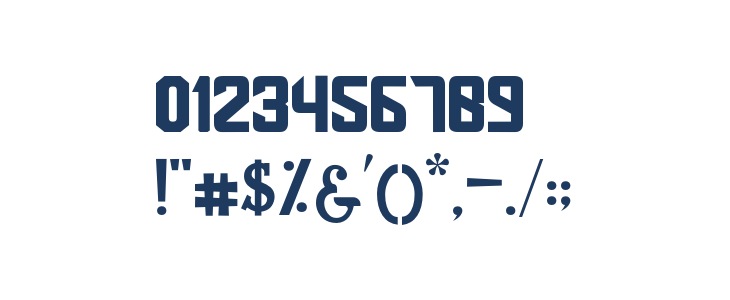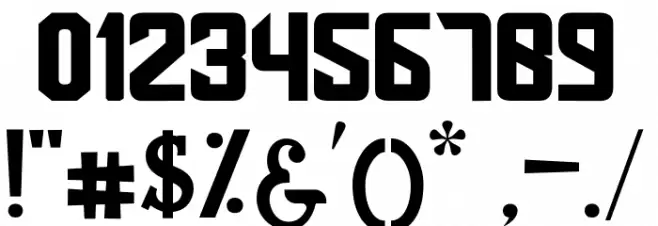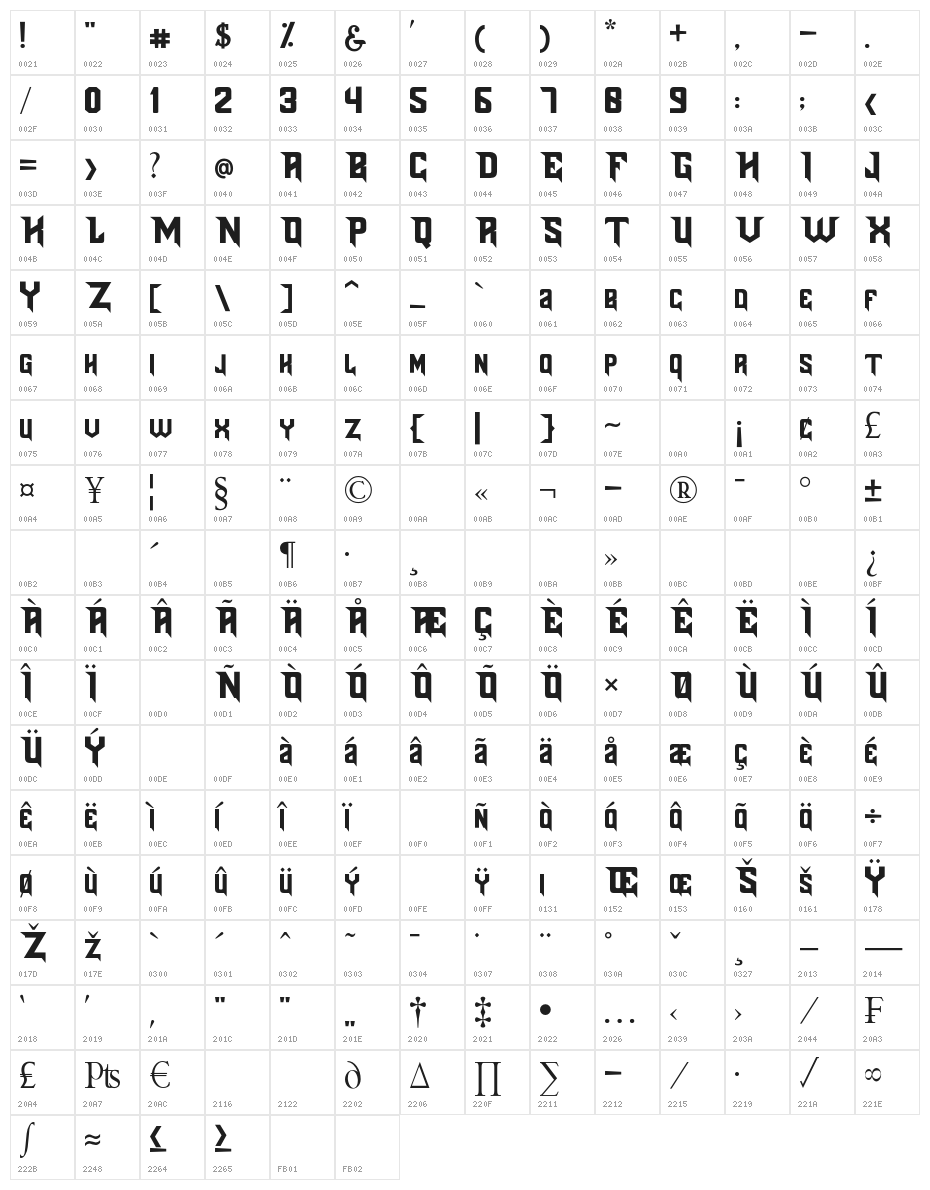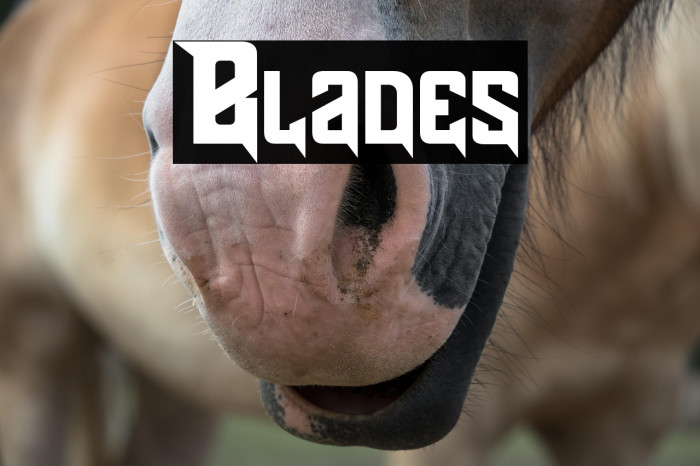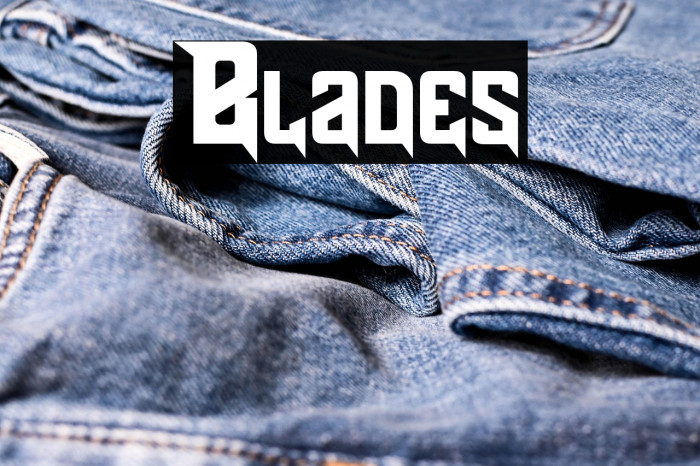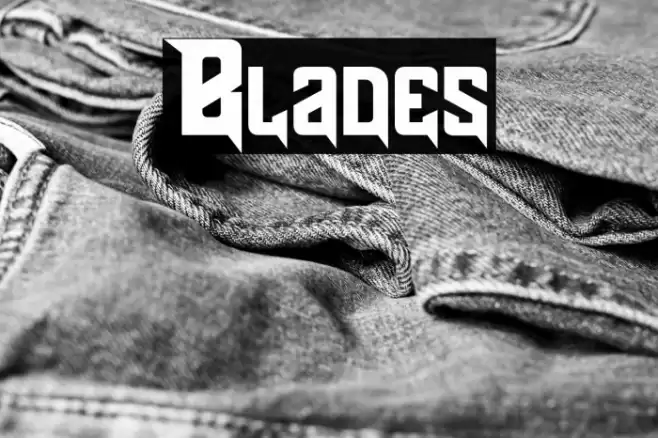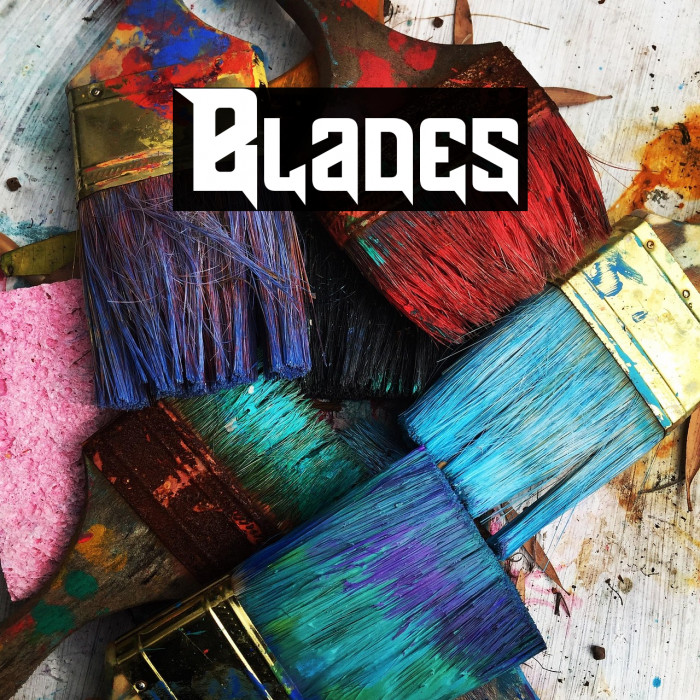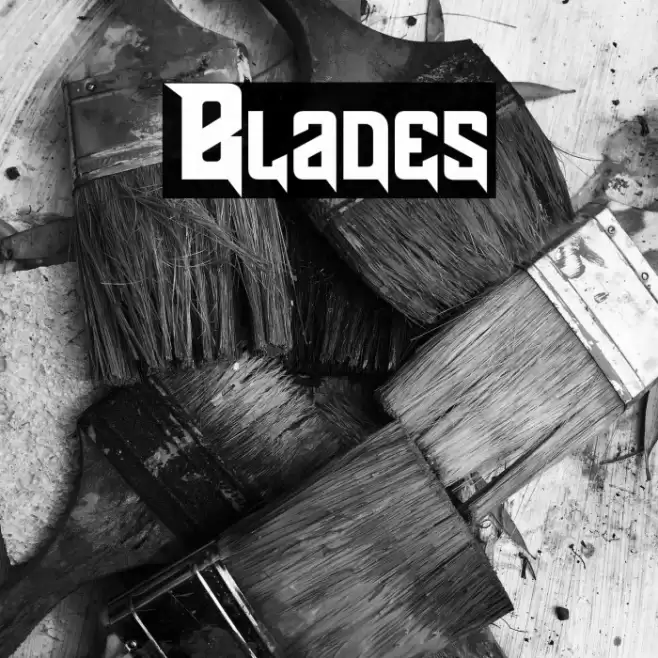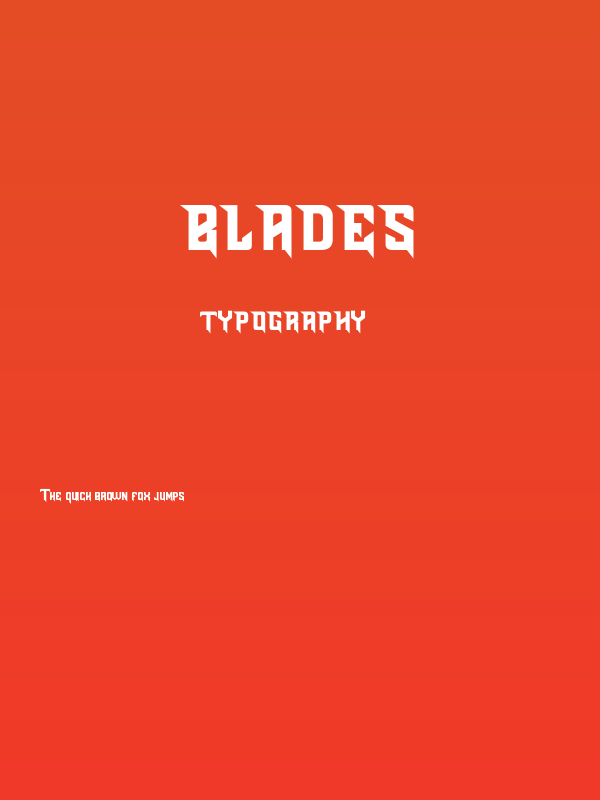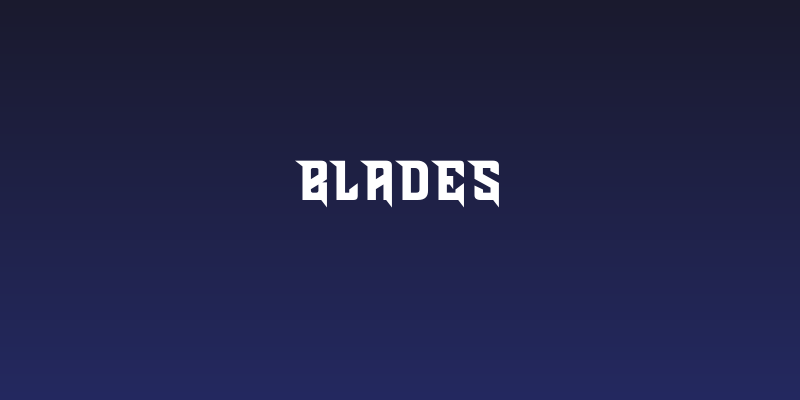
Blades Font
Blades Description
This font features a bold, angular design with sharp edges and a geometric structure. The uppercase letters are particularly striking, with a futuristic and aggressive appearance. The characters are uniform in width, contributing to a cohesive and balanced look. The numbers and special characters maintain the same bold and angular style, ensuring consistency across all elements. This font is highly decorative and makes a strong visual impact, ideal for projects that require a modern and edgy aesthetic.
| Proposed Projects | Ideal for branding, posters, video game titles, and any project needing a strong, modern aesthetic. |